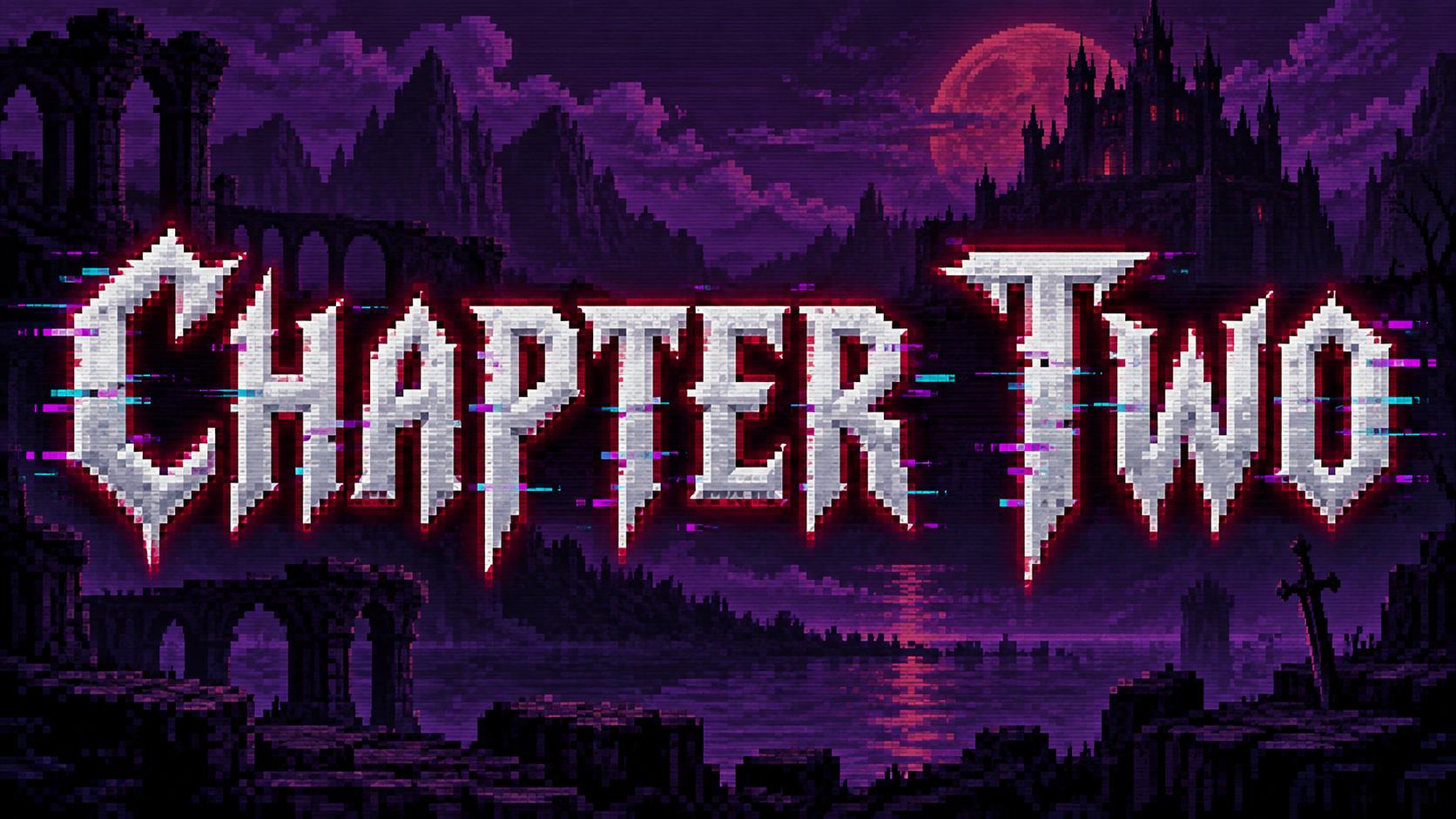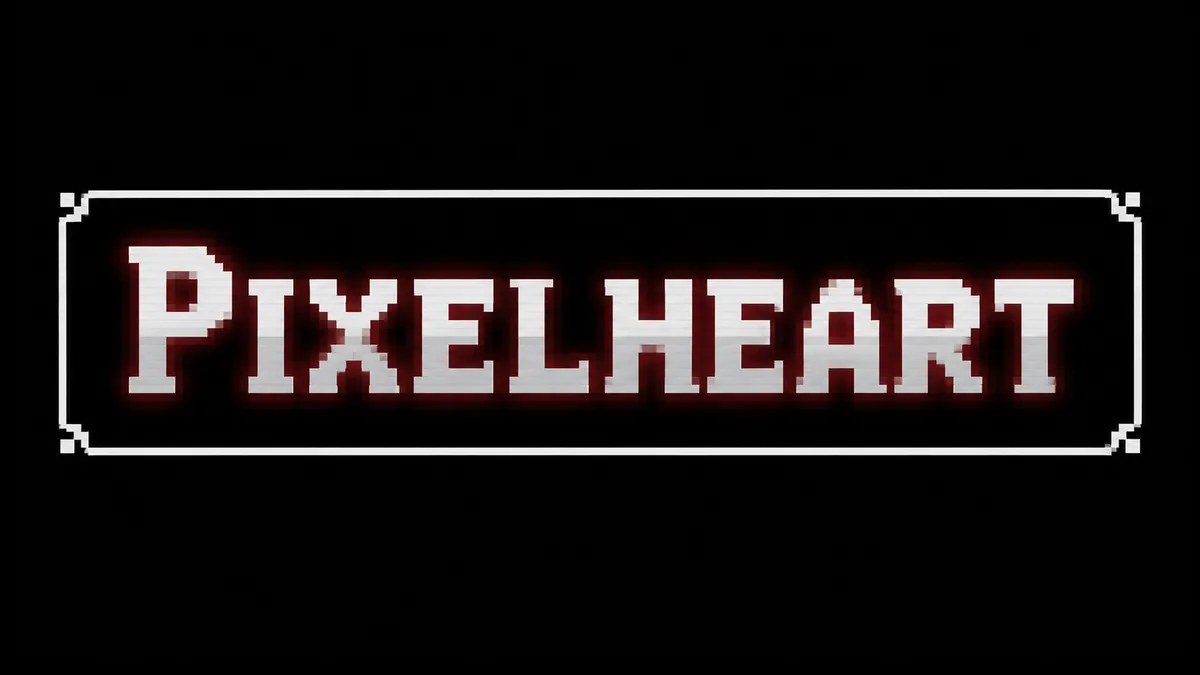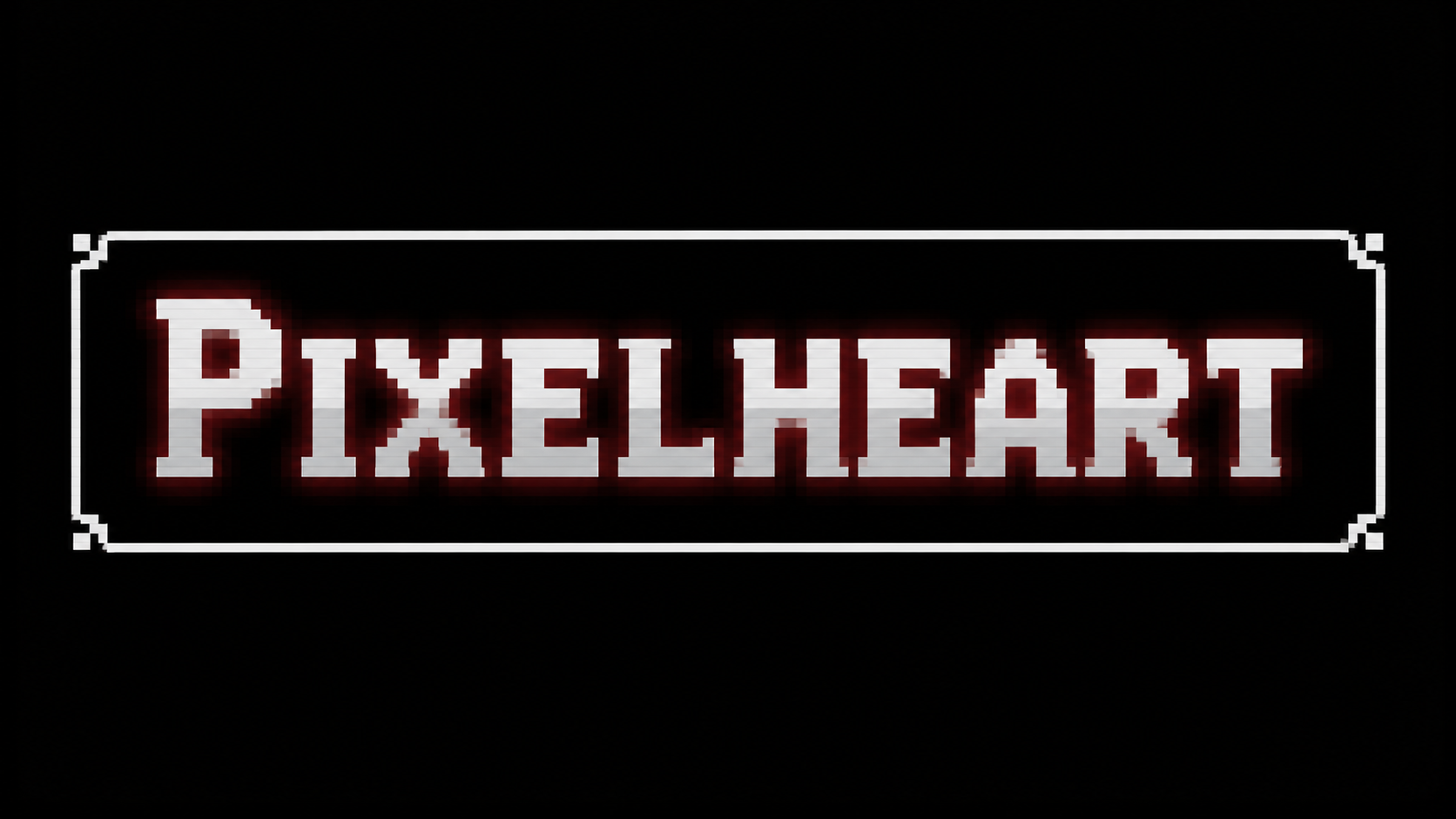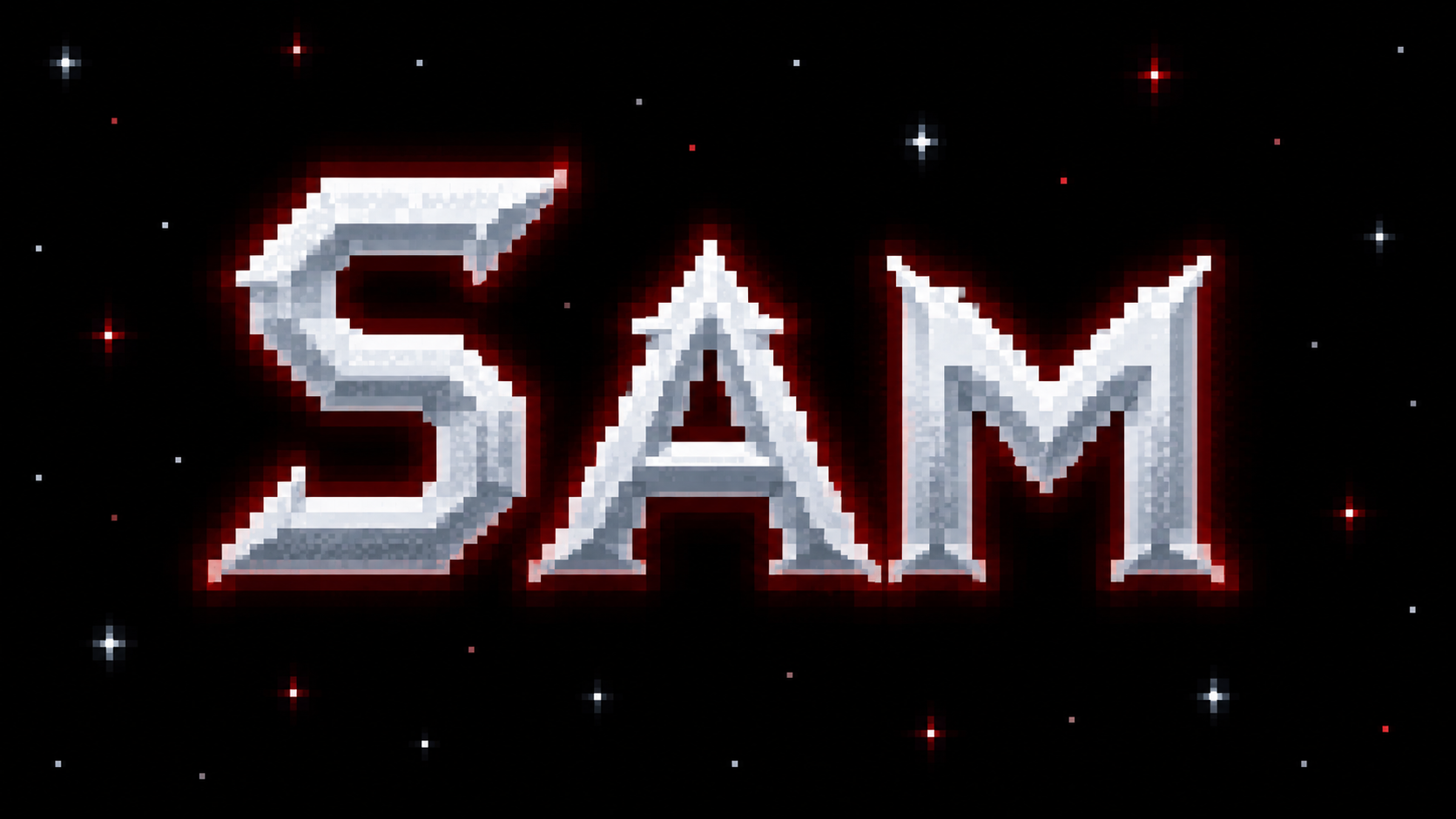
Deltarune Font Generator
Sharp pixel title lettering and retro dialogue boxes, inspired by the indie RPG. Fan-made, not affiliated.
stark angular pixel capitals in pale silver with a dim red glow, wide letter spacing, title screen composition
Searches for the Deltarune font usually mean one of two things: the stark, angular pixel title lettering in pale silver on black, or the monospaced pixel dialogue that scrolls inside a bordered text box. Fontique does not distribute those typefaces or copy the game logo. Our AI renders your own words in an original retro-RPG style inspired by that visual language, from the title screen to the text box.
The Title Pixel preset gives you sharp angular pixel capitals with a faint red glow. Text Box turns your line into a bordered black dialogue panel with white pixel type, the closest thing to a deltarune text box generator without touching the original assets. Glitch Realm adds violet and cyan glitch artifacts, Battle Menu goes orange on a neon battle screen, and Chalk Board uses chalk-white pixel type over a dark teal neon-world scene.